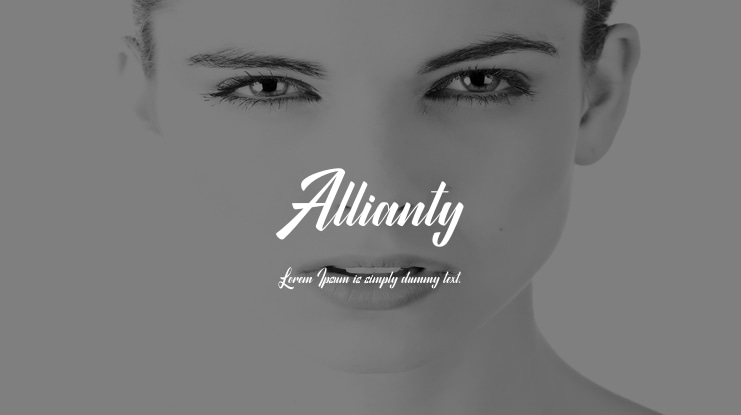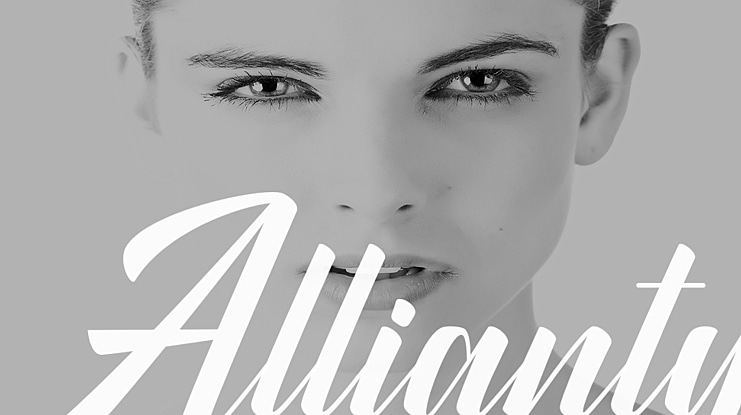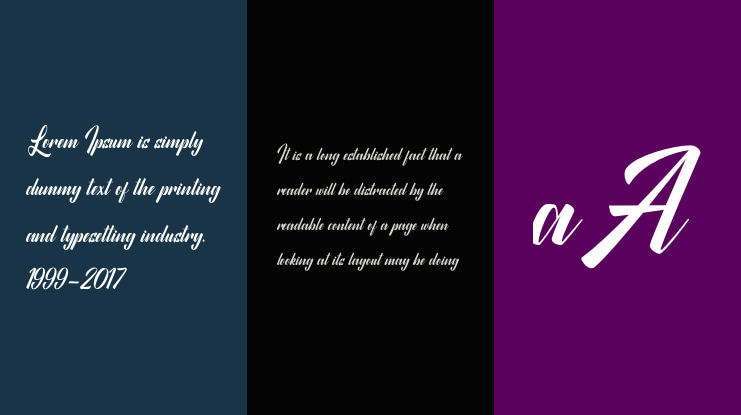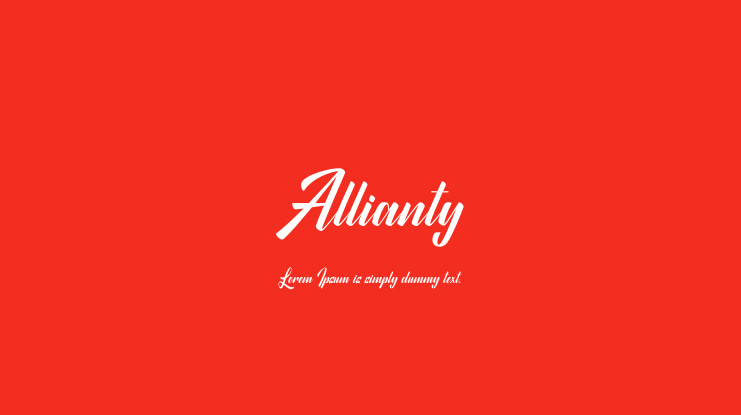
Allianty Font
Allianty is modern script font. It has a classy, elegant and modern look that can be used for logos, branding, invitations, stationery, wedding designs, social media posts, and much more!
Allianty Features :
- Ligature
- Stylistic Alternates
- Stylistic Set 01
- Stylistic Set 02
- Swash
- Multilingual Support